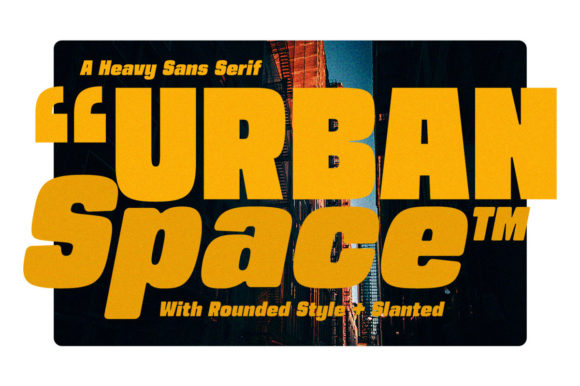
**Urban Space Font: Embark on a Cinematic Adventure with Every Letter**
In the realm of digital design, fonts hold the power to transform words into visual masterpieces, evoking emotions and setting the tone for any creative project. Among these typographic gems, Urban Space Font stands tall, a bold and heavy sans serif font that will take your designs to cinematic heights.
Journey into the world of Urban Space and discover a font family that exudes strength, confidence, and a touch of urban grit. Each letter, meticulously crafted by the skilled hands of letterhend, carries the weight of a thousand stories, waiting to be unleashed onto your creative canvas.
**Unleash Your Inner Filmmaker and Create Blockbuster Titles**
With Urban Space Font, you possess the key to unlock a world of cinematic possibilities. Imagine your words gracing the silver screen, commanding attention with their bold presence. Urban Space is the perfect choice for crafting movie titles that leave an indelible mark on the minds of your audience. Its heavy strokes and striking appearance will transport viewers into the heart of your story, igniting their imagination and setting the stage for an unforgettable cinematic experience.
**Make a Bold Statement in Corporate Identity and Brand Design**
Urban Space Font isn't just limited to the realm of filmmaking. It is a versatile font that thrives in the world of corporate identity and brand design. Picture your logo adorned with the bold lines of Urban Space, conveying a sense of power, stability, and unwavering determination. This font commands attention, making your brand stand out from the crowd and leaving a lasting impression on potential customers.
**Elevate Your Creative Projects to New Heights**
Whether you're designing posters, music albums, or creating eye-catching social media graphics, Urban Space Font is your trusted companion. Its bold presence adds a touch of drama and intrigue to any project, captivating your audience and leaving them craving more. Unleash your creativity and let Urban Space take your designs to new heights, transforming them into unforgettable works of art.
**Immerse Yourself in Urban Grit and Cinematic Grandeur**
With Urban Space Font at your disposal, you have the power to bring your creative visions to life. Whether it's a gripping movie title, a striking brand logo, or an awe-inspiring poster, Urban Space will elevate your work to new heights. Prepare to embark on a journey where urban grit meets cinematic grandeur, and let your imagination soar with the boundless possibilities that await you. Embrace the power of Urban Space Font today and unlock the true potential of your creative endeavors.